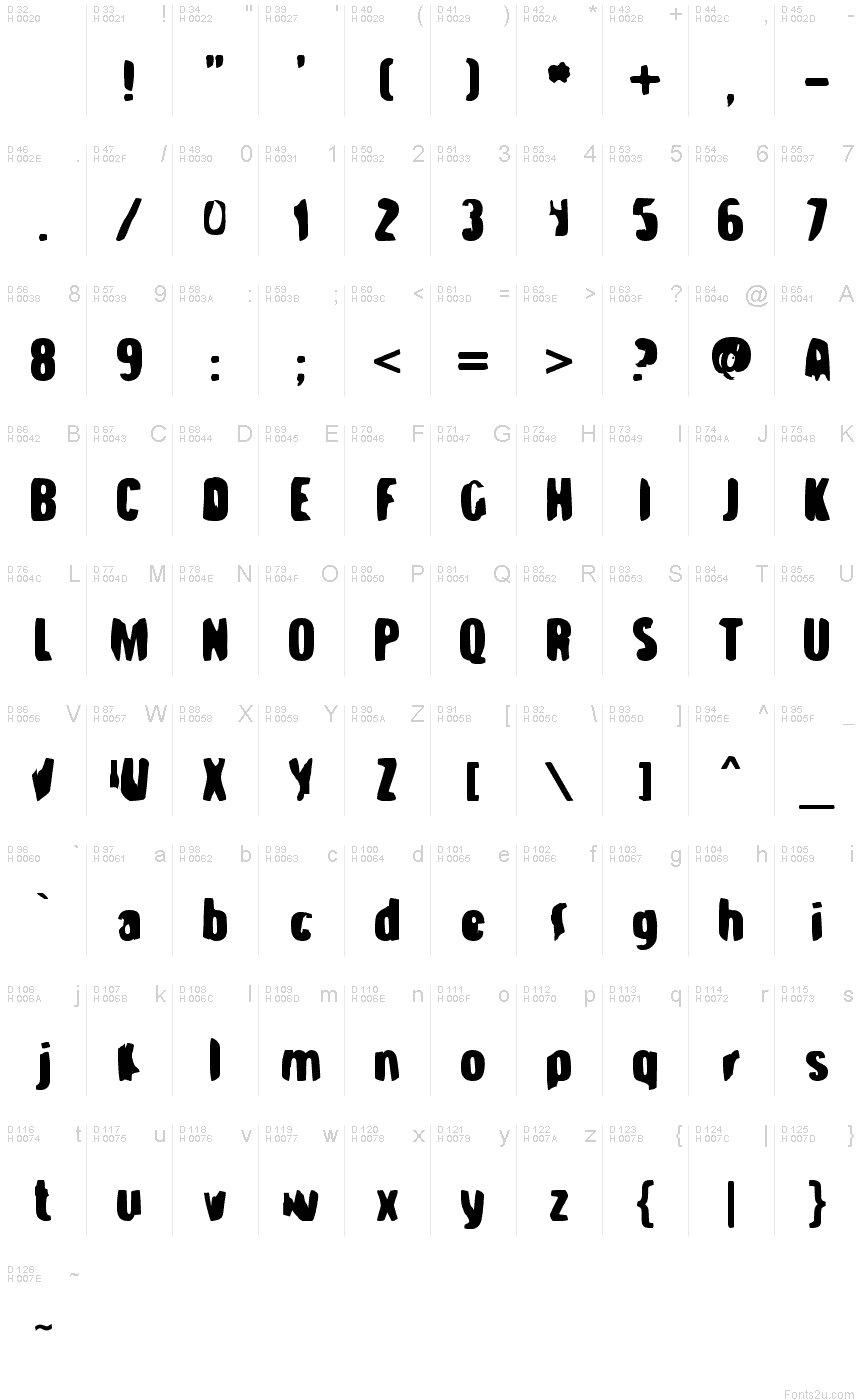
Strange Brew
Strange Brew by Statica Prodcutions is a free psychedelic distorted display font with the wobbly, melted attitude of late-1960s poster lettering. The letters sag, bulge, and pinch in uneven ways, with chunky forms and soft curves that make the whole font feel tipsy and handmade rather than orderly.
That gives this free font a natural home in music posters, zine covers, skate graphics, party flyers, and retro-themed packaging. It also works well for short headlines, title cards, and logo-style wordmarks, where those lumpy silhouettes can carry the mood before you read a second line.